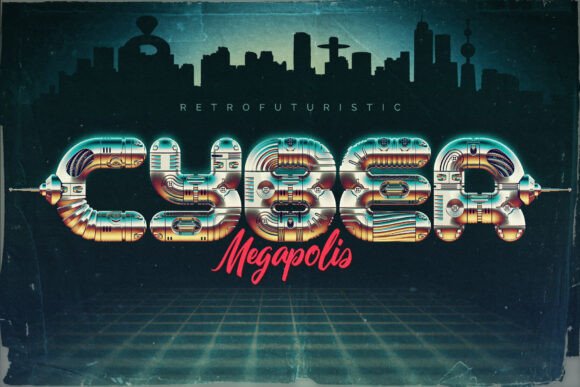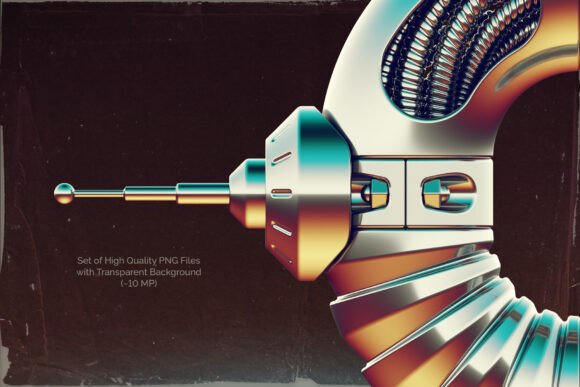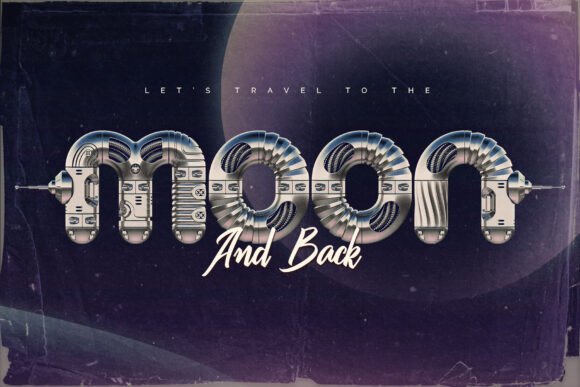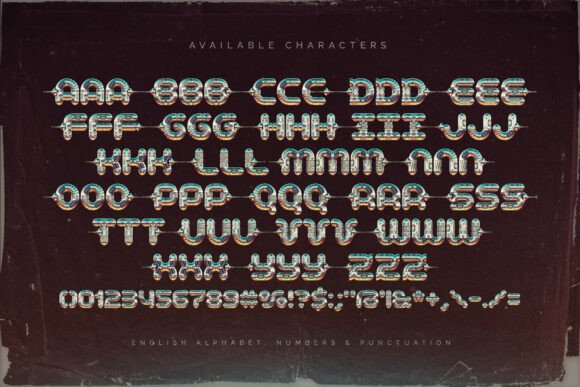
Introduction to Chromo Robo Font
This 3D-rendered display font features a vintage chrome design inspired by retro robot aesthetics of the 1980s.
With a glossy, metallic finish and bold, futuristic letterforms, it evokes classic sci-fi and arcade themes Perfect for tech, cyberpunk, or nostalgic projects needing a strong mechanical feel.